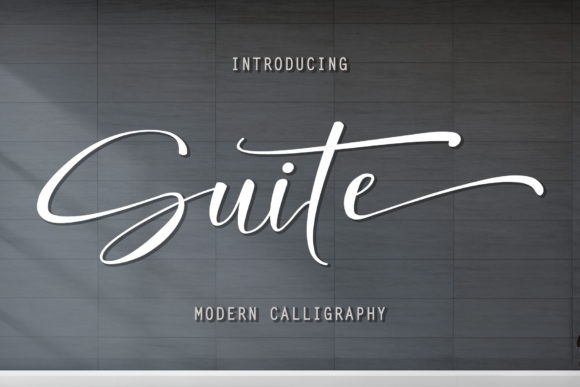
Behold Suite Font, the script font that's sure to add a touch of enchantment to your app logo designs. This exquisite creation by Creaditive Design is a symphony of grace and sophistication, ready to elevate your designs to new heights.
Suite Font is the perfect choice for those seeking a font that exudes elegance and class. Its meticulously crafted curves and flourishes lend a timeless appeal to your designs, making them stand out from the crowd. Whether you're creating logos for fashion brands, lifestyle apps, or creative studios, Suite Font will effortlessly elevate your designs to the next level.
But Suite Font is more than just a beautiful face. It's also incredibly versatile, capable of adapting to a wide range of design styles. From classic and traditional to modern and minimalist, Suite Font seamlessly blends into any aesthetic, adding a touch of refinement and sophistication.
With Suite Font, you can unleash your creativity and explore endless design possibilities. Its PUA encoding makes it easy to access all the glyphs and swashes, giving you the freedom to experiment and create truly unique and captivating logos.